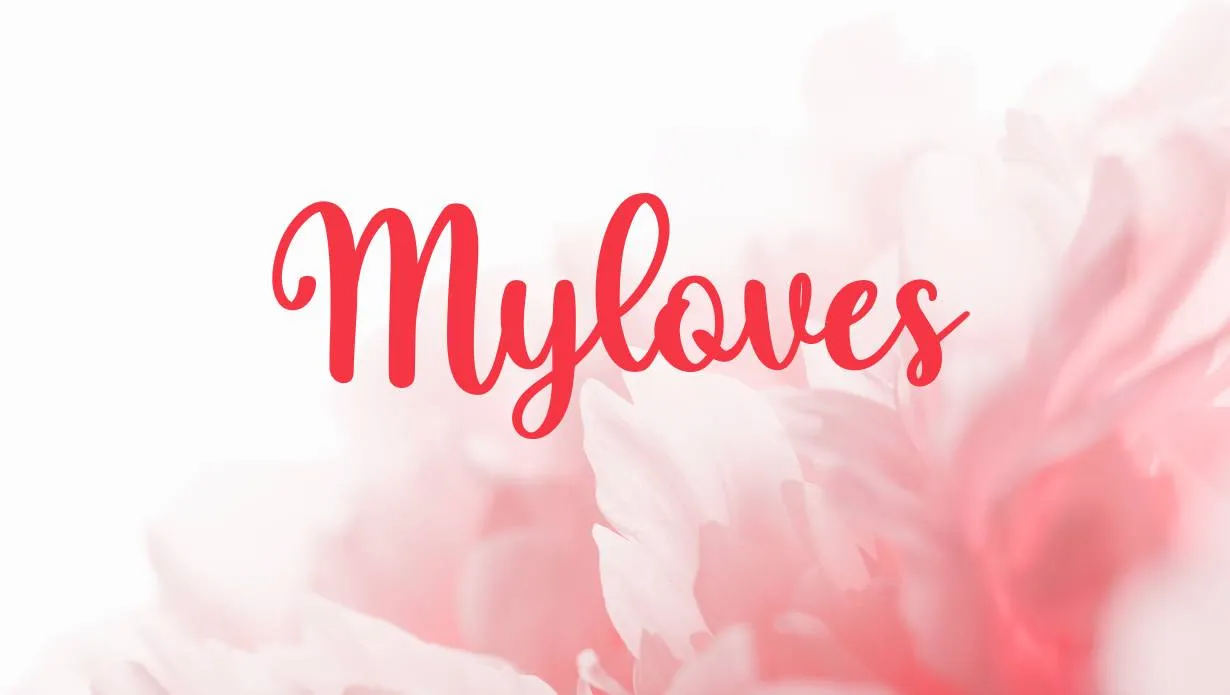
About Myloves Font
Myloves Font is a charming handwritten script typeface with flowing, organic strokes that convey warmth and a personal touch. Its casual, brush‑like letterforms make it suitable for romantic themes, invitations, greeting cards, social media posts, and creative branding. The font blends readability with expressive curves, giving designs an elegant yet playful aesthetic. Myloves enhances both digital and print projects with a handcrafted feel that adds emotion and personality to headlines and display text.